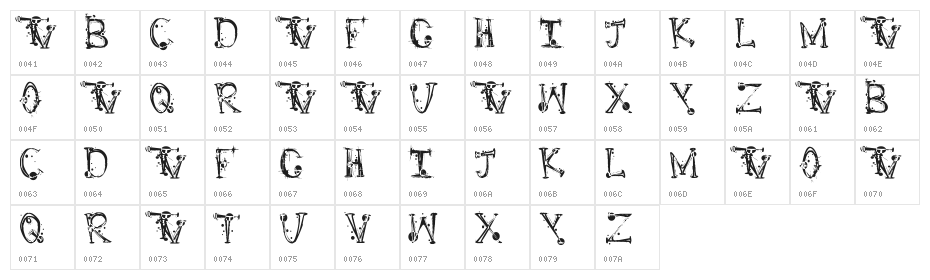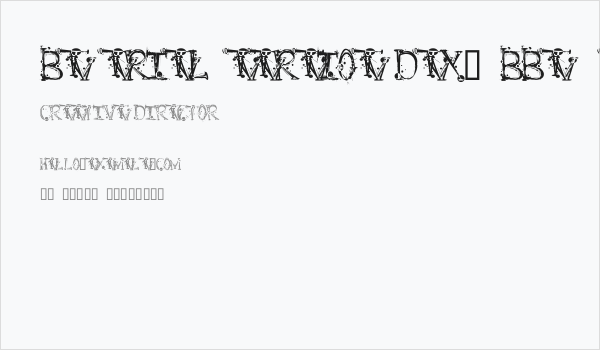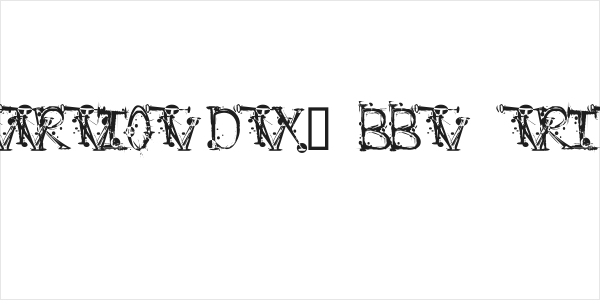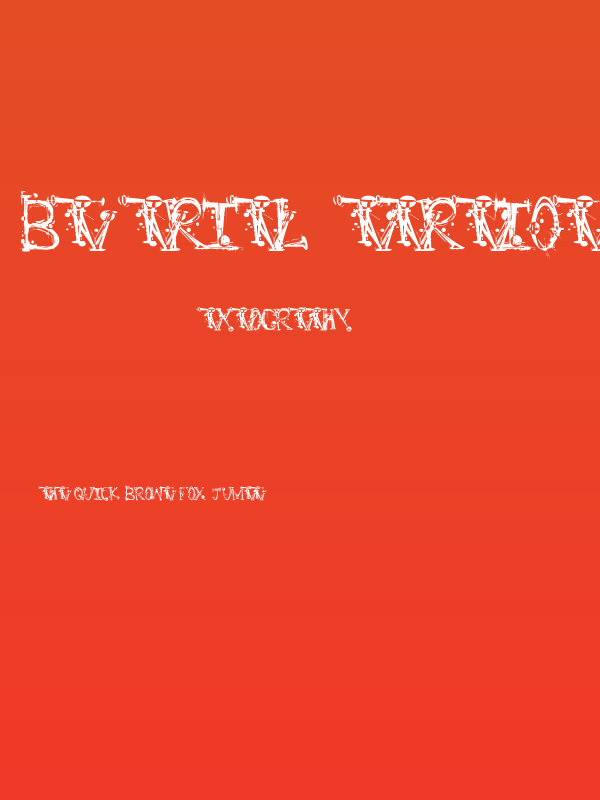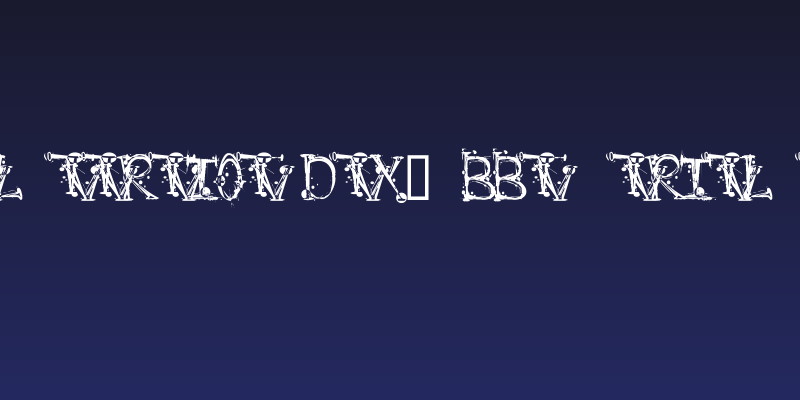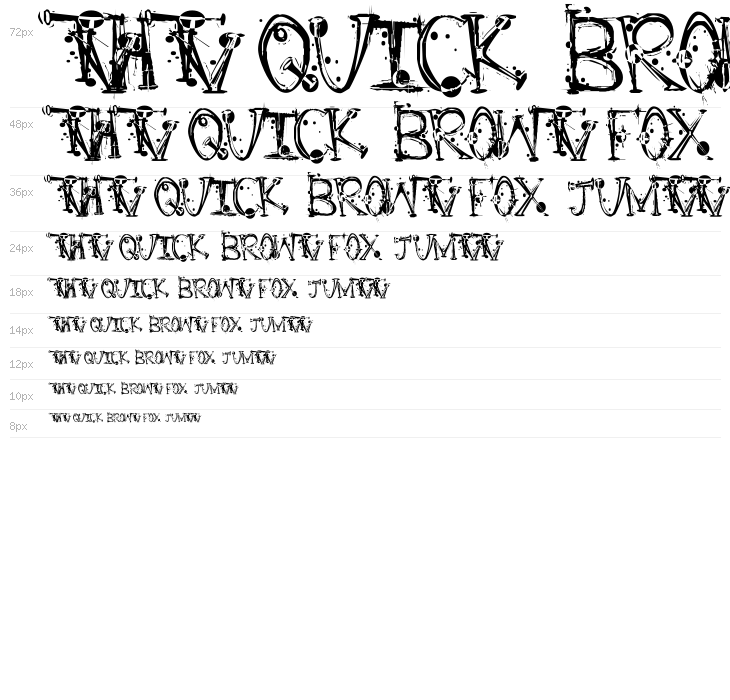
BT TRIAL VERSION Day7 BBA TRIAL VERSION Font
BT TRIAL VERSION Day7 BBA TRIAL VERSION Description
This font features a highly decorative and grungy style, characterized by its intricate and chaotic design elements. Each letter is adorned with splatters, scratches, and irregular shapes, giving it a distressed and edgy appearance. The uppercase and lowercase letters maintain a consistent theme of artistic disarray, making it visually striking and unique. The numerals and special characters follow the same design principles, ensuring a cohesive look across all glyphs. This font is ideal for projects that require a bold and unconventional aesthetic, such as album covers, posters, or any creative work that seeks to stand out with a rebellious flair.
| Proposed Projects | Ideal for album covers, posters, and creative projects needing a bold, rebellious aesthetic. |